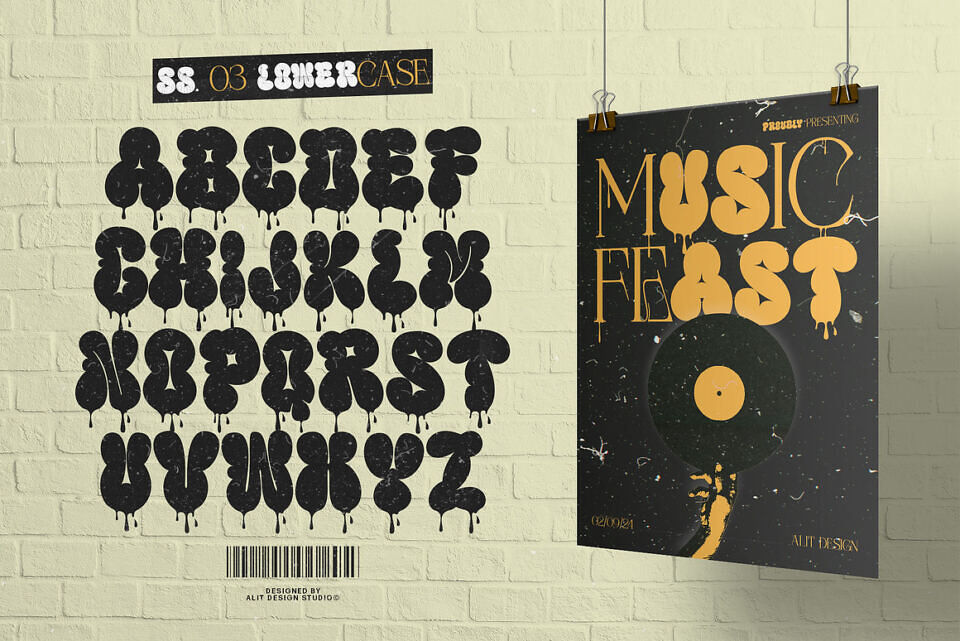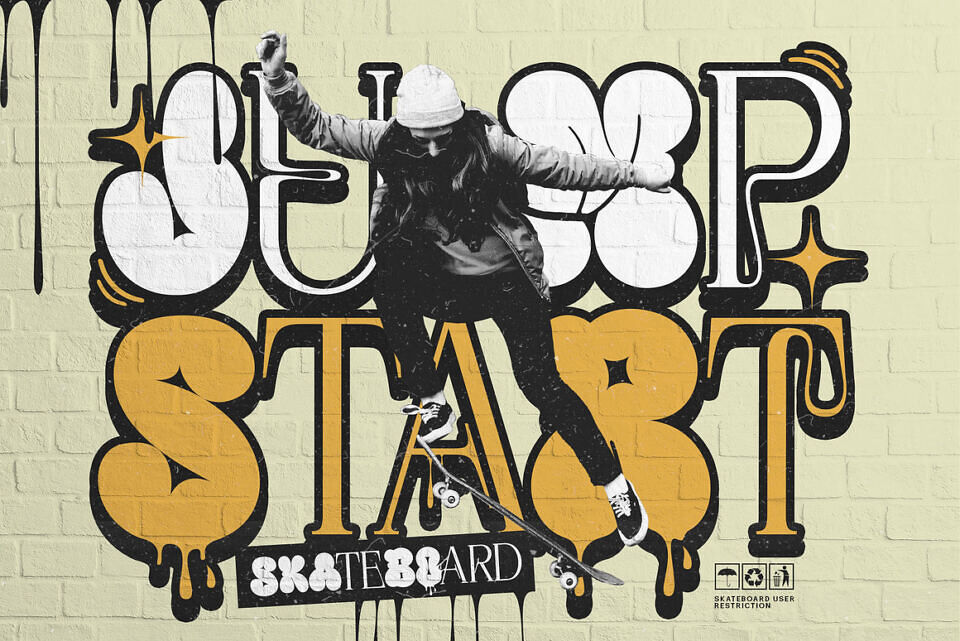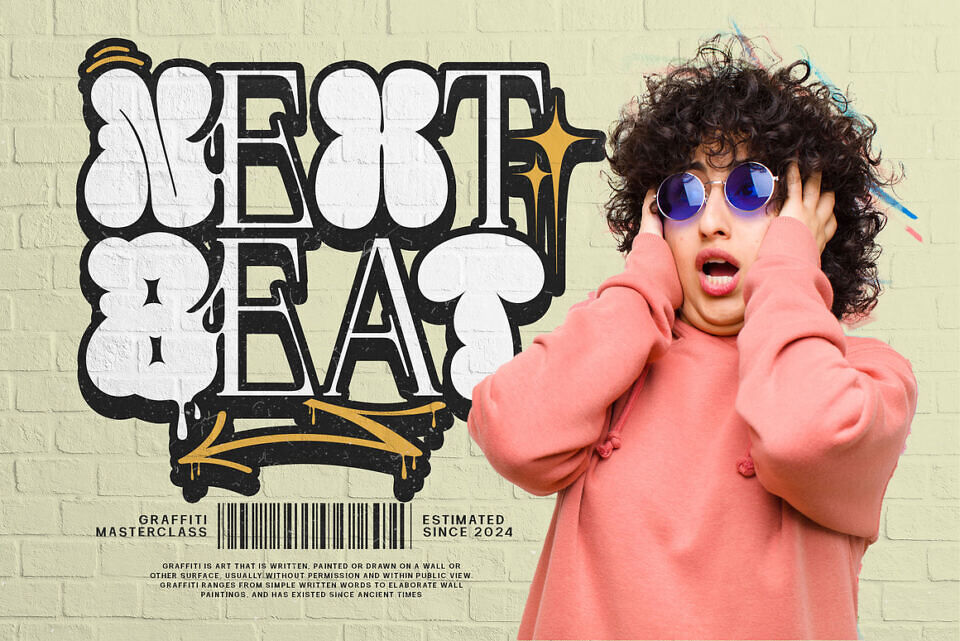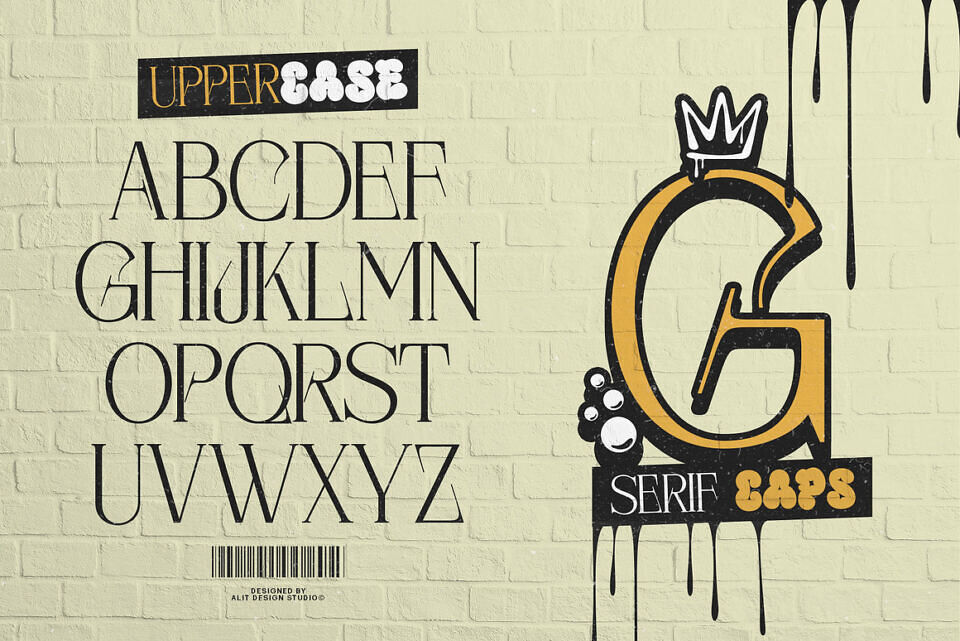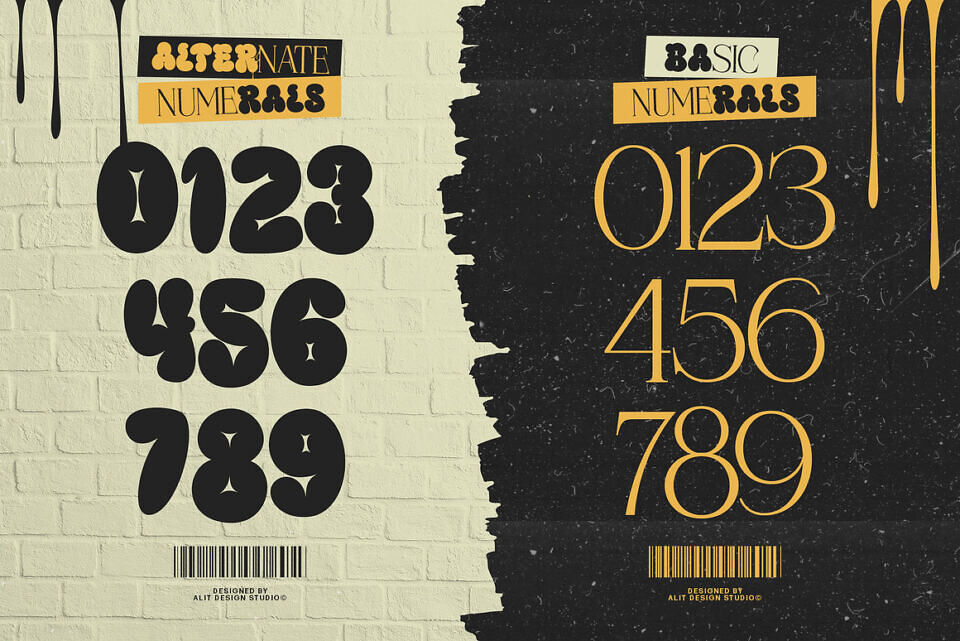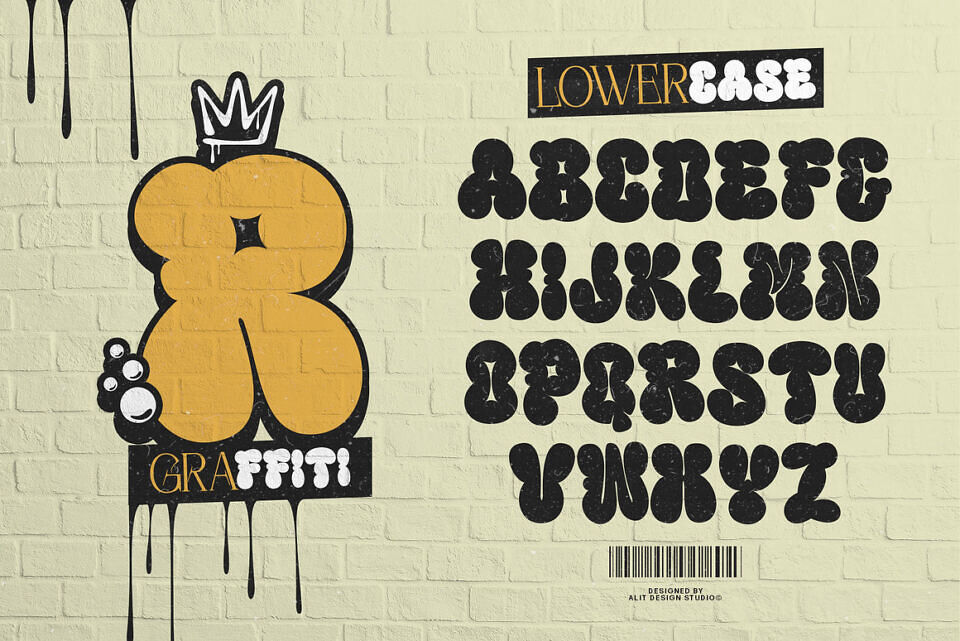
Warior Bomber Font
Warior Bomber is a bold, graffiti-inspired font that fuses the playful energy of bubble lettering with the elegance of serif design. Each letter is shaped like sticky rubber, giving a hand-molded, dynamic look that feels ready to leap off the page.
Its expressive style is enhanced by creative ligatures that flow naturally, adding authenticity and movement. The addition of striking serif details brings structure and sophistication, creating a powerful contrast within the urban aesthetic.
Perfect for designs that aim to blend rebellion with refinement, Warior Bomber offers a fresh and versatile typeface that stands out with attitude and flair.